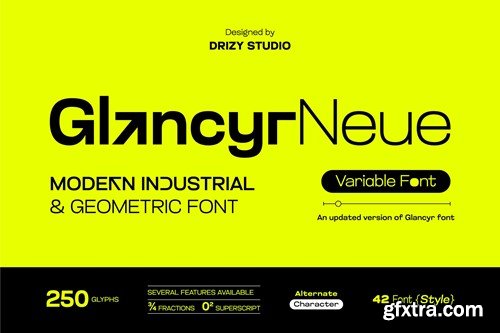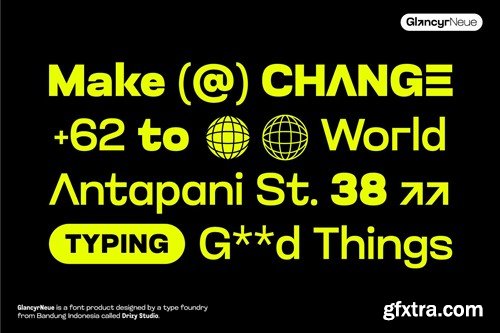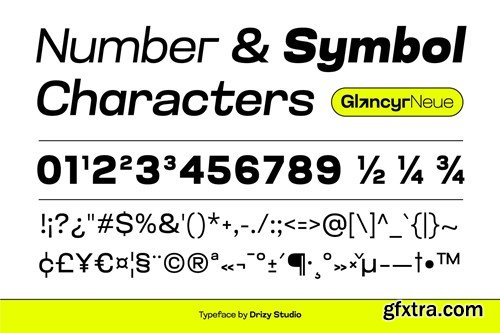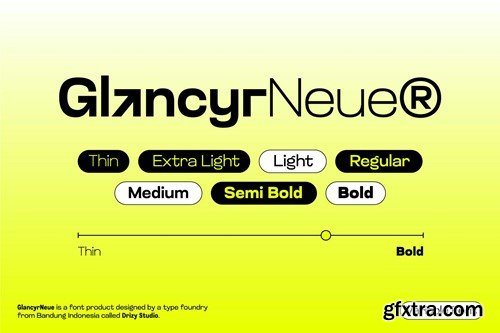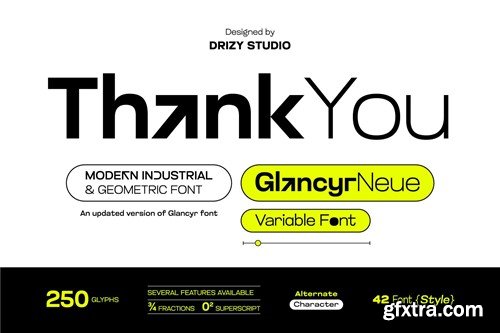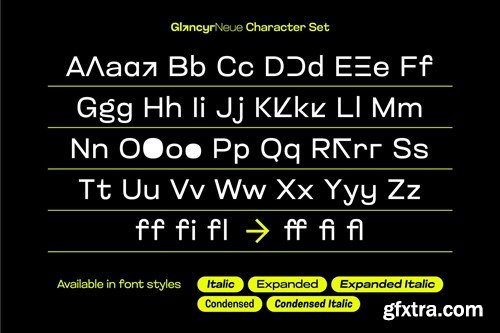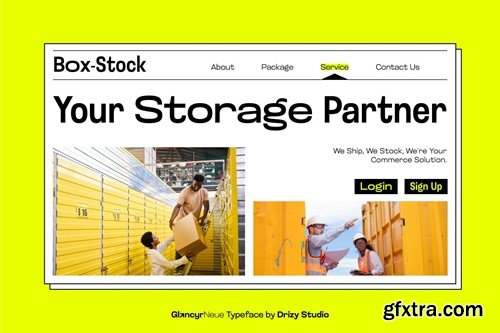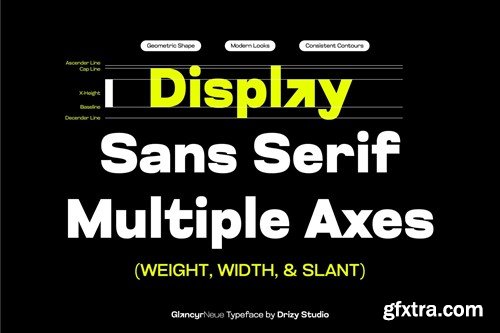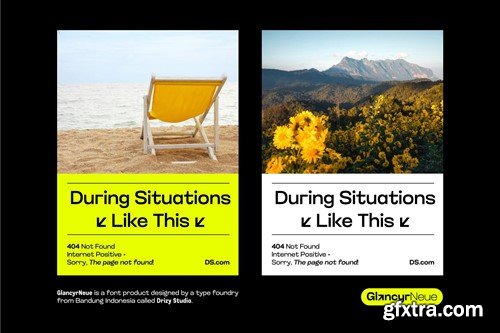
GlancyrNeue – Modern Geometric Industrial Font
GlancyrNeue – Modern Geometric Industrial Font GlancyrNeue is a sleek and versatile typeface that marries modern elegance with industrial strength. This font stands out with it’s clean lines, geometric shapes, and contemporary aesthetics, making it perfect for a wide range of design projects. GlancyrNeue features: File Included: OTF & TTF Elevate and explore the design possibilities with this Modern Industrial & Geometric Font!